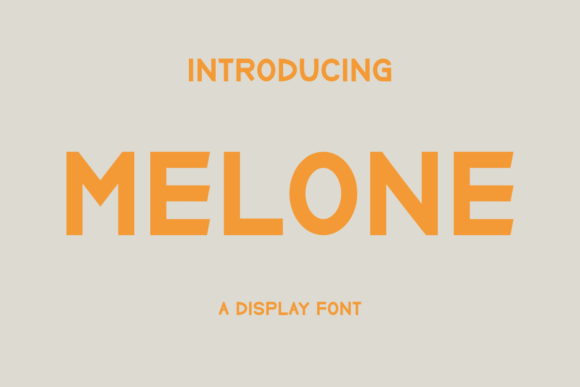
Introducing Melone Font, the epitome of modernity and authenticity! Created by the talented maikofarazhatta, this captivating font belongs to the display font family, making it perfect for those seeking a unique and attention-grabbing font style for their letters.
With its bold and distinctive appearance, Melone Font adds a touch of elegance and sophistication to any branding project. Whether you're designing a logo that needs to stand out from the crowd, printing eye-catching t-shirts, or even delving into the exciting world of esports, Melone Font is your ultimate companion.
Why settle for ordinary when you can embrace the extraordinary? Melone Font is designed to captivate both your target audience and your own imagination. Its flawless curves and sleek lines make every letter a work of art, effortlessly merging form and function.
Unleash your creativity and watch your ideas come to life with Melone Font. Its versatility knows no bounds, allowing you to explore endless possibilities in your design journey. From sleek and modern to bold and edgy, this font adapts effortlessly to your vision, ensuring that your message is conveyed with utmost clarity and impact.
Melone Font's captivating charm extends beyond its visual appeal. It evokes a myriad of emotions, leaving a lasting impression on anyone who lays eyes on it. Its boldness exudes confidence, while its authenticity speaks volumes about your brand's values and uniqueness.
Whether you're a seasoned designer or just starting your creative journey, Melone Font is the perfect tool to elevate your projects. Its user-friendly nature ensures a seamless experience, allowing you to focus on what truly matters – bringing your ideas to life with style and impact.
Unlock a world of possibilities with Melone Font. Join the ranks of visionary designers who understand the importance of choosing the right font style for their letters. Don't settle for mediocrity when you can embrace excellence. Take your designs to the next level with Melone Font – the modern font that sets the standard for boldness, authenticity, and creativity.